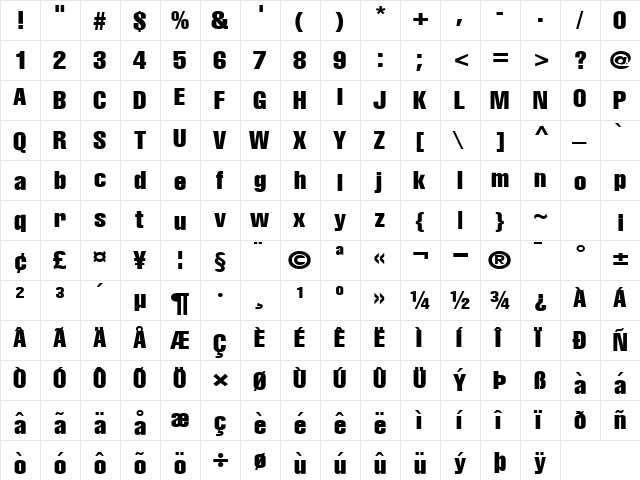
Baby Regular
Design Context for Baby Typeface
Baby offers clean, dependable letterforms without strong stylistic allegiance, making it a practical choice for designers who need flexibility.
Pro Tip: Use Baby in both headline and body roles to test its range before committing to a single application.